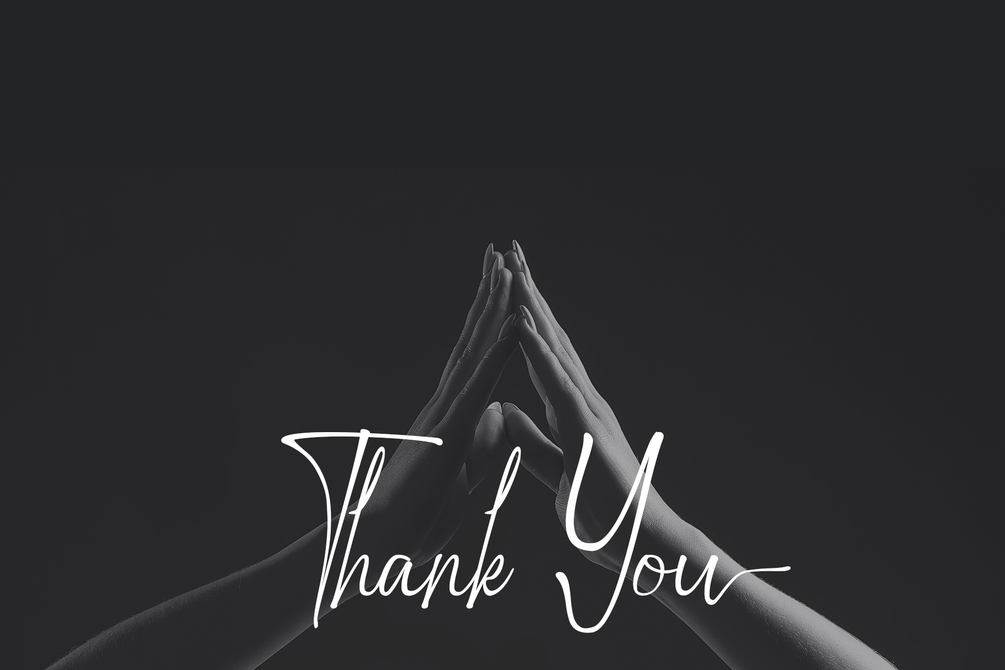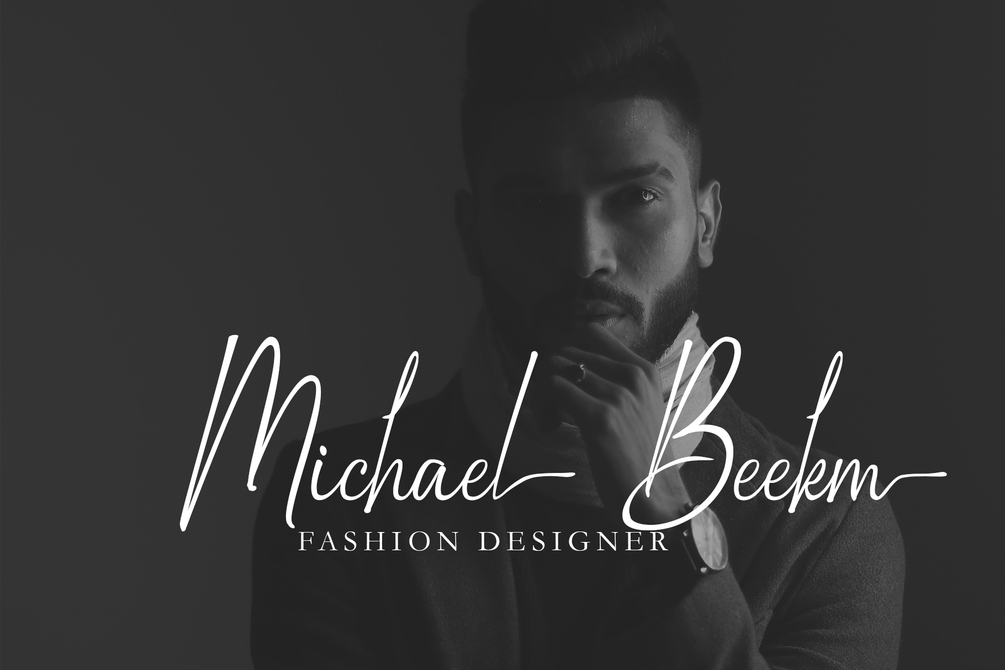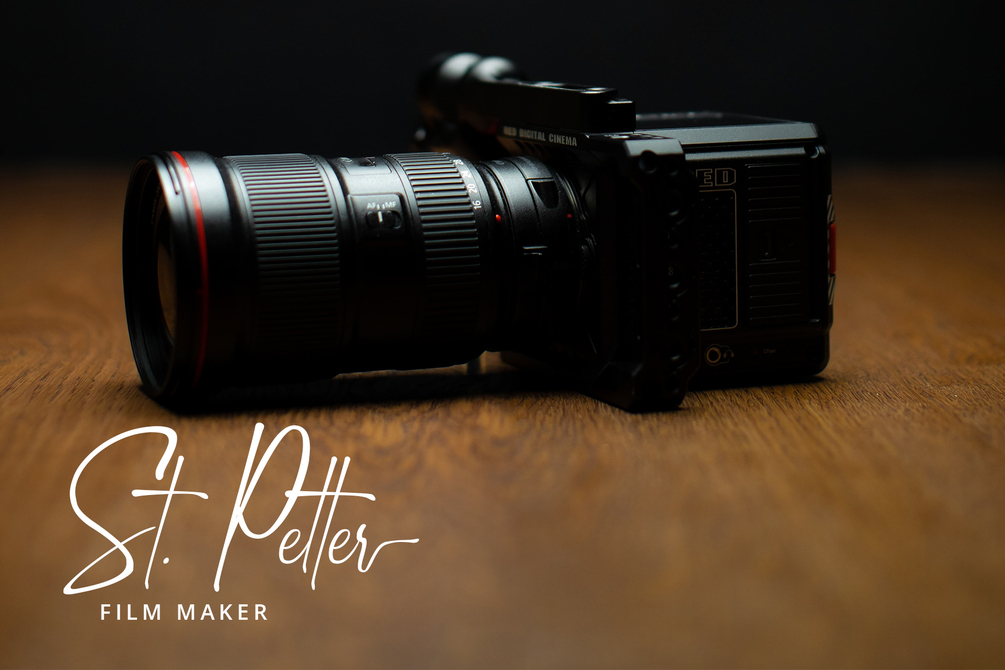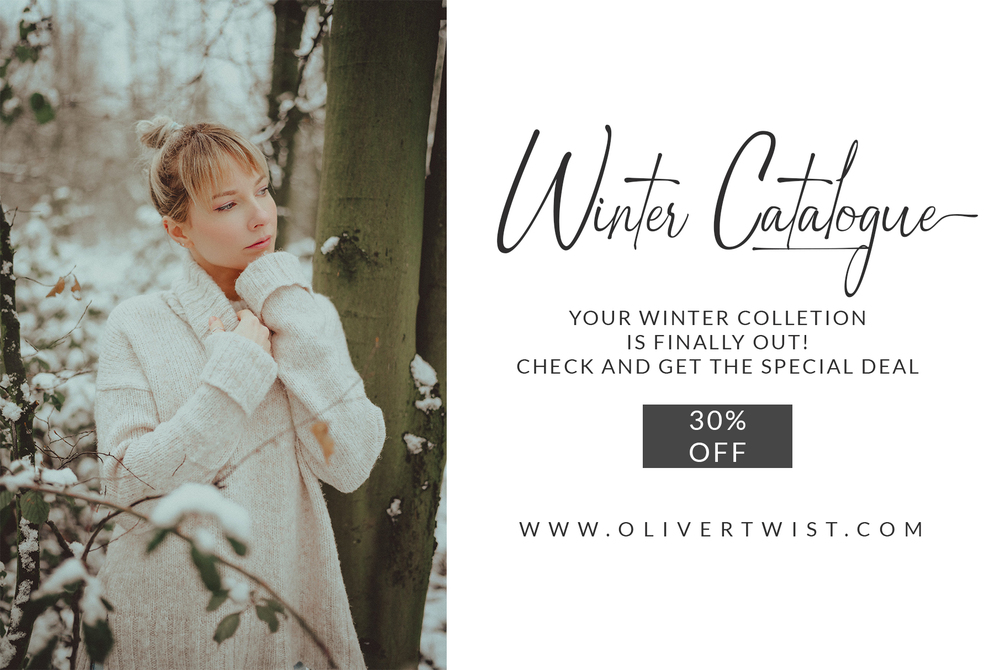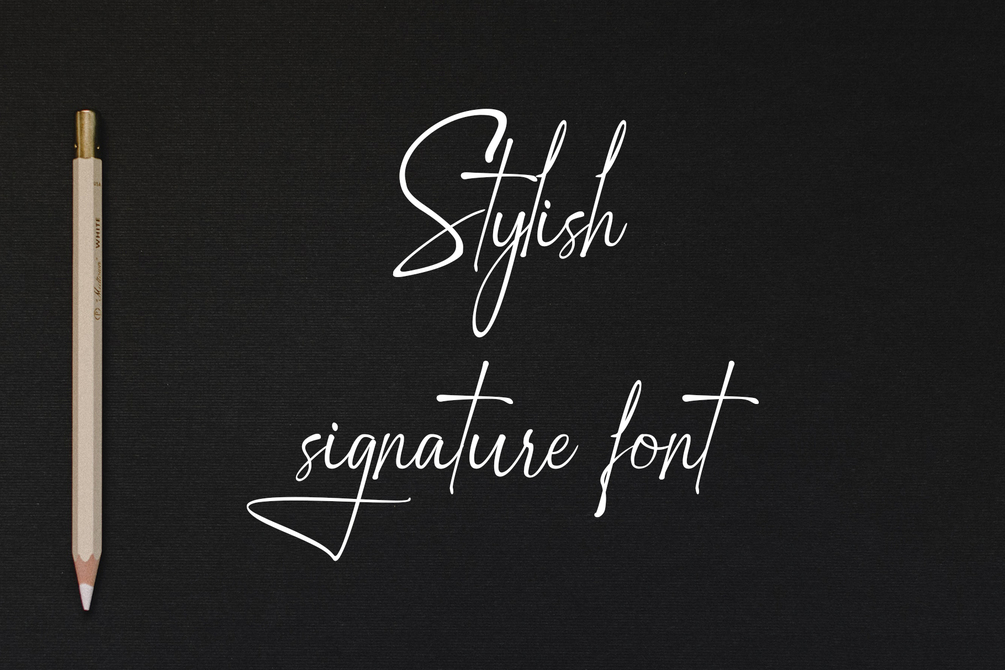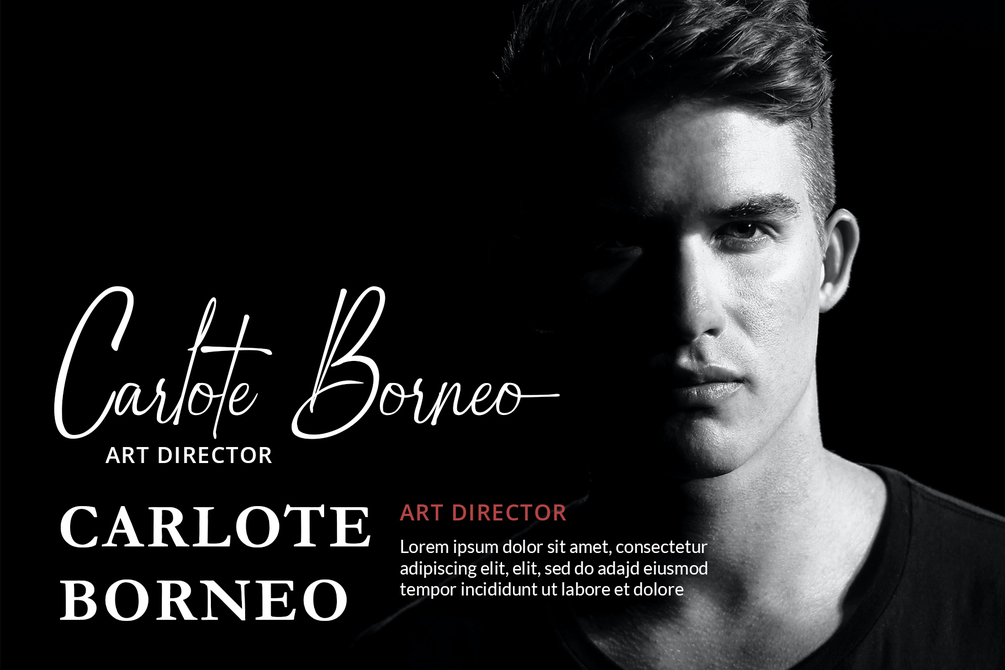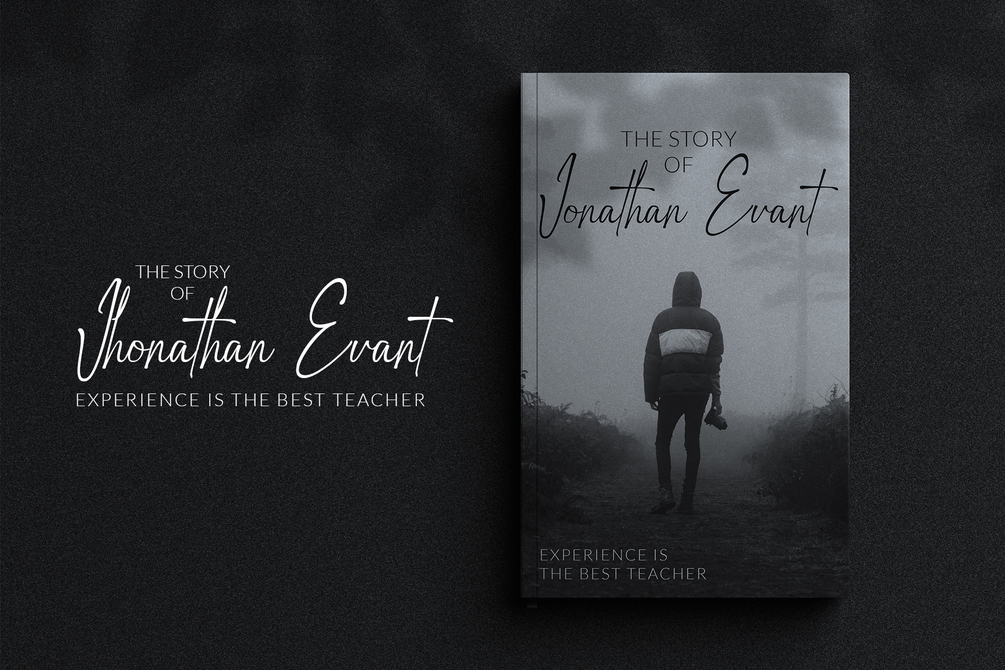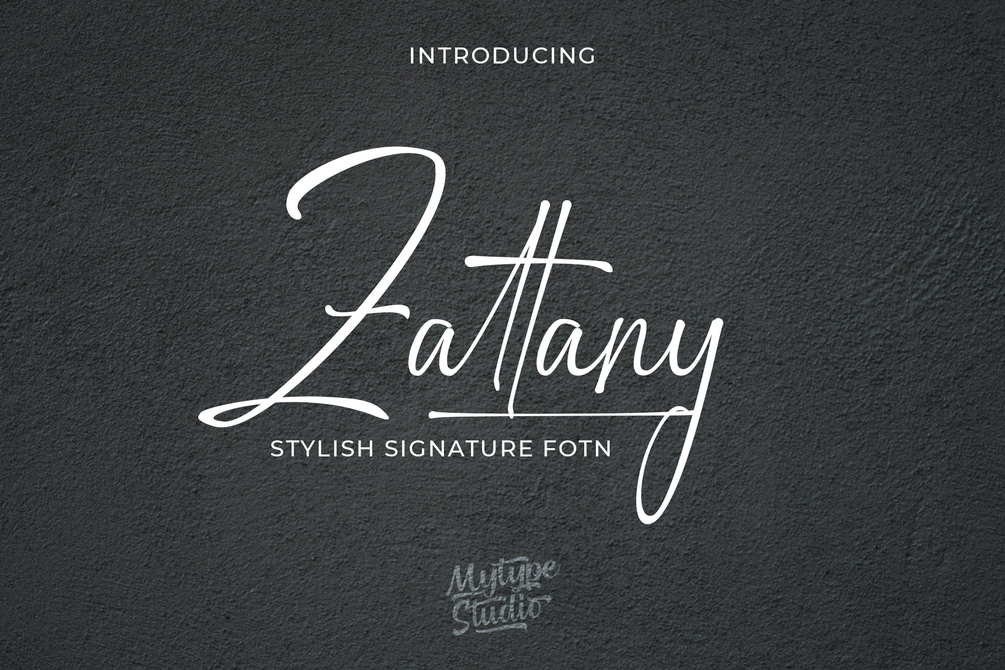
Zattany | Stylish Signature Font
Introducing Zattany is a stylish Signature font with contemporary and sophisticated accents. It is perfect for logo/branding projects, large header text and product packaging.
Zattany Feature
• Ligatures
• Alternates
• Swashes
• Multiligual